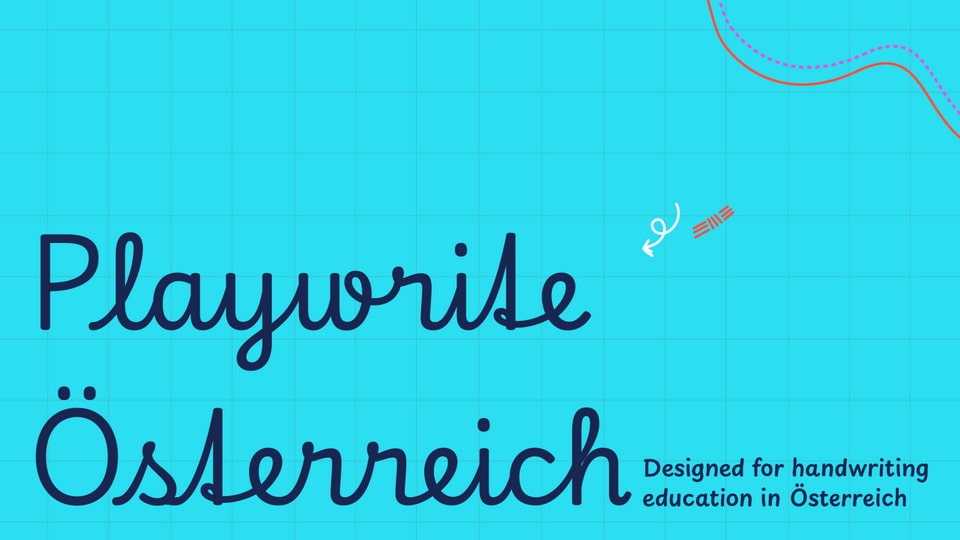
Download Playwrite Österreich font, a typeface that allows the creation of primary school cursive fonts. This cursive style, available in upright and slanted versions, features oval foundational forms and medium-length extenders.
Designer: TypeTogether